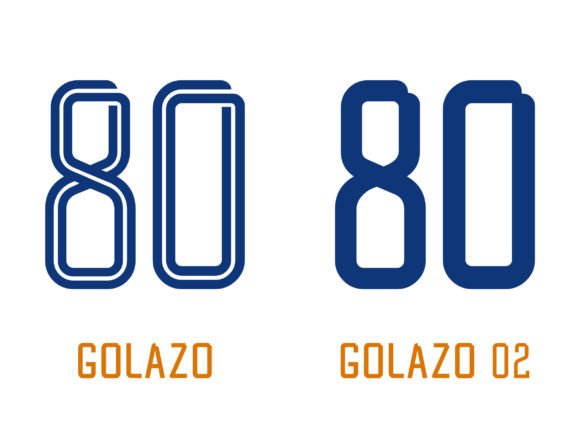
The Ultimate Game-Changer: Golazo Font
I’ll never forget the time I was working on a project to design a custom jersey for a local football team. As I was browsing through my font library, I realized that I just couldn’t find the perfect one that would make their jersey stand out from the rest. The client wanted something bold, unique, and sporty, but also elegant and eye-catching. That’s when I stumbled upon the Golazo font, and let me tell you, it was a total game-changer! ⚽️
An Honest Review: What I Love and What I Don’t
- ✅ Unique and bold design that’s perfect for sports-related projects, especially football or soccer jerseys
- ✅ Highly legible, even at smaller sizes, making it versatile for various design applications
- ✅ Great for display purposes, such as headlines, titles, or promotional materials
- ✅ Works well in both digital and print formats
- ⚠️ Limited use outside of sports or display contexts, as it may not fit in with more formal or traditional designs
- ⚠️ Some users may find the font a bit too bold or overpowering for certain projects
Golazo font was designed with one goal in mind: to create a bold, eye-catching font that’s perfect for sports-related projects. The designer, inspired by the world of football, wanted to create a font that’s both elegant and energetic. With its unique shape and lettering style, Golazo font is sure to make any jersey or promotional material stand out from the crowd.
Q: What is Golazo font best used for?
A: Golazo font is best used for sports-related projects, such as football or soccer jerseys, as well as display purposes like headlines or titles.